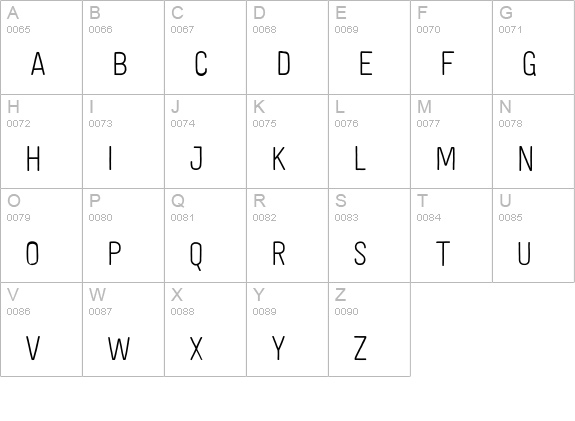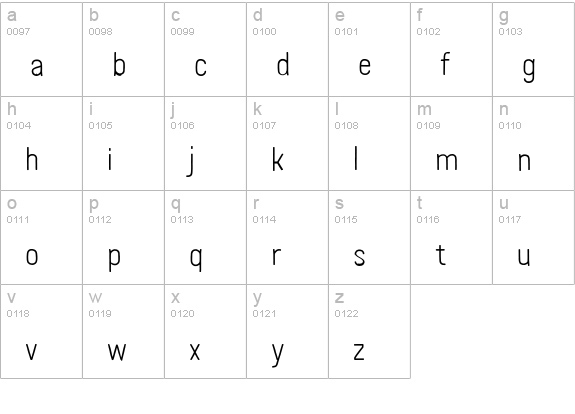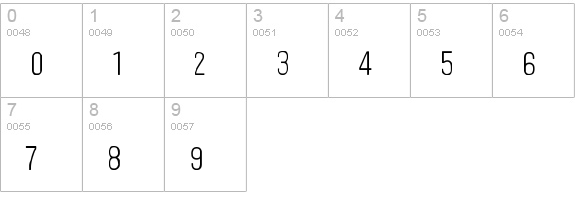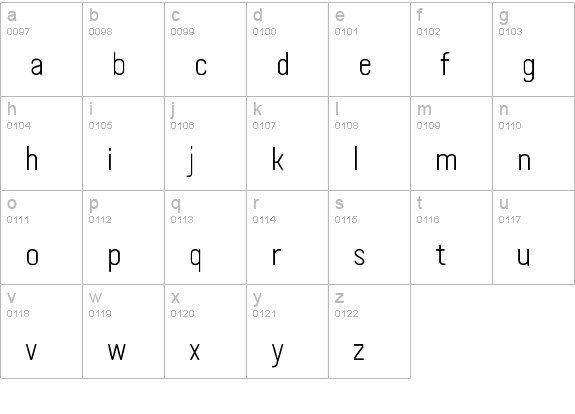
Festivo LC Mini font is a charming and playful typeface that exudes a festive and cheerful vibe. Its rounded edges and compact design make it perfect for creating eye-catching designs for various projects. Whether you are working on invitations, greeting cards, posters, or social media graphics, Festivo LC Mini font will add a touch of whimsy and fun to your creations. What's even better is that Festivo LC Mini font is available for free download at FontsMarket.com! You can easily access this delightful font and use it in your personal and commercial projects without any cost. So go ahead and bring a touch of celebration to your designs with Festivo LC Mini font!